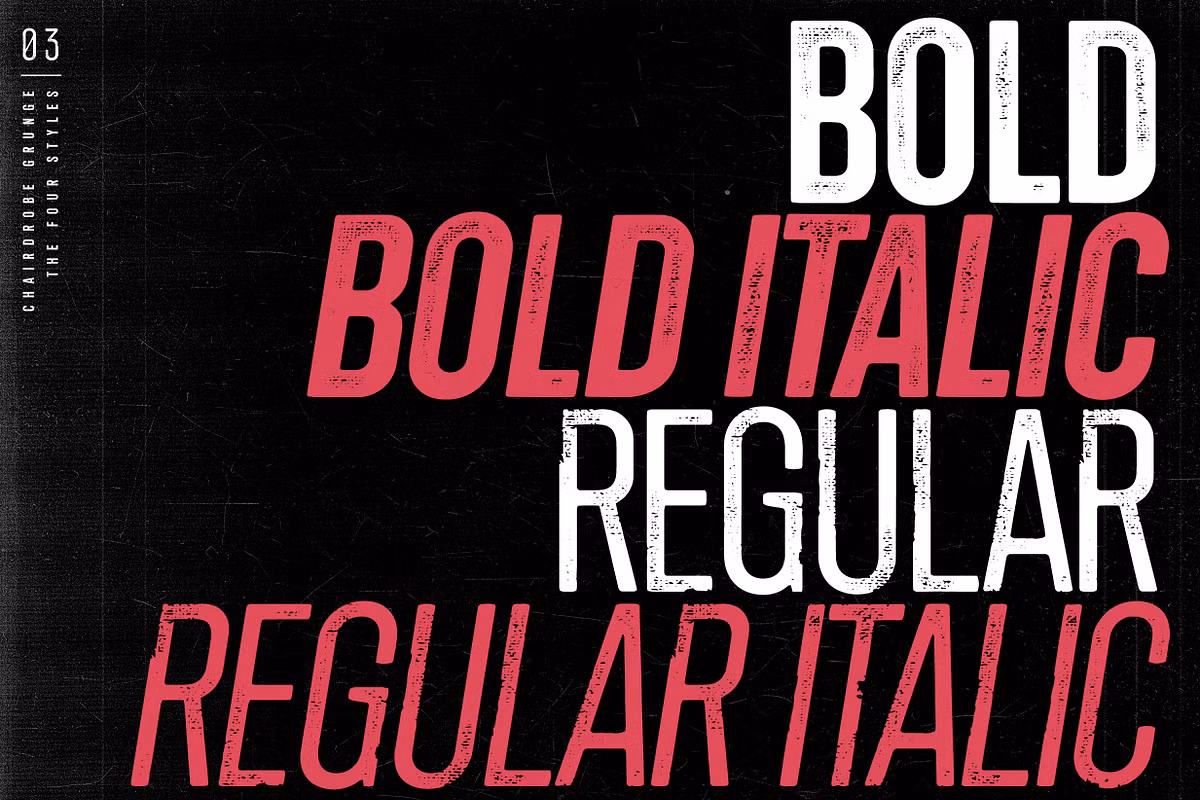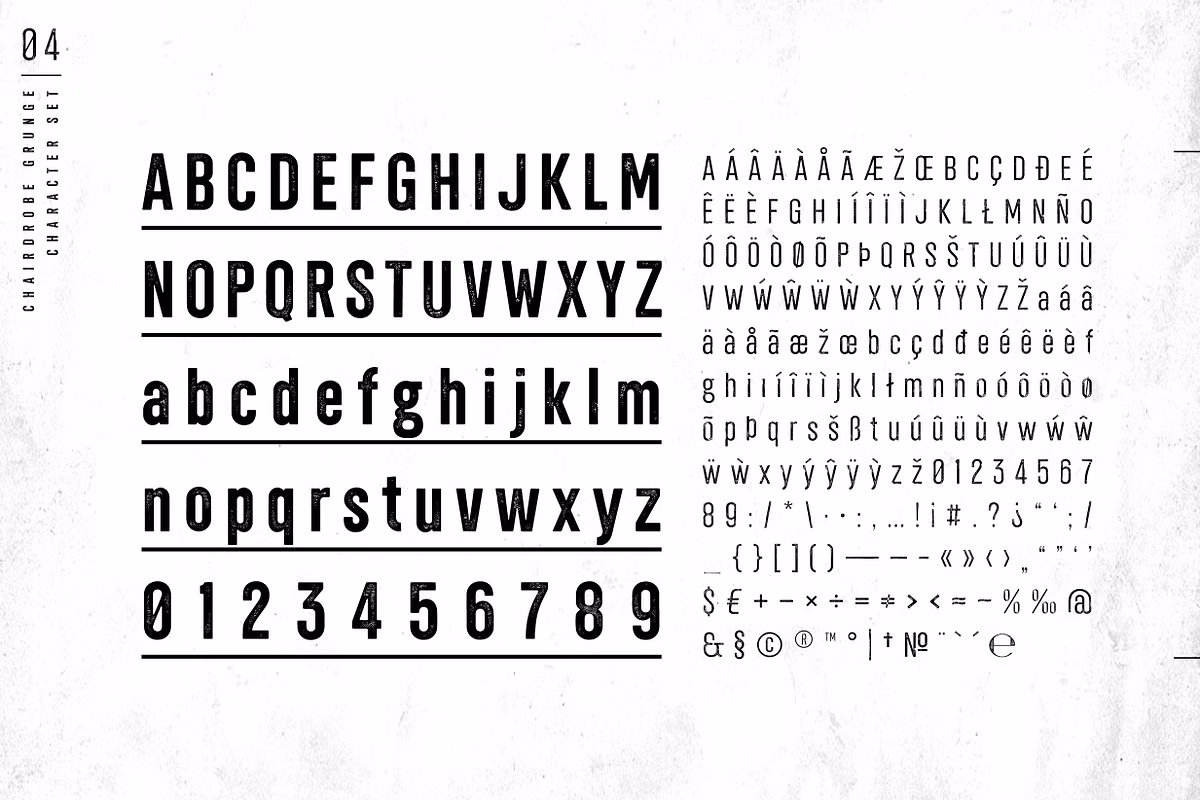
Chairdrobe Grunge: Minimalistic Urban Typeface with Four Styles
Introduction to Chairdrobe Grunge
Chairdrobe Grunge is a simple yet stylish font that’s perfect for modern city designs. It has a clean, rough look that gives it a bit of an edge, making it great for adding some attitude to your work. With four different styles to choose from – Bold, Bold Italic, Regular, and Regular Italic – you can use Chairdrobe Grunge for all sorts of projects, from bold statements to more subtle touches. Its raw, urban feel makes it a versatile choice for designers who want to give their work a contemporary twist. Whether you’re working on a poster, a website, or something else entirely, Chairdrobe Grunge is a great option to consider.
Design Style of Chairdrobe Grunge
The style of Chairdrobe Grunge is all about keeping things simple, but it still has a lot of personality. This font doesn’t have the extra bits on the letters, and it comes in both big and small letters, so you can use it in lots of different ways. The letters have rough edges and aren’t perfectly smooth, which gives them a cool, city feel. This makes it perfect for projects that want to stand out from the crowd and be a little different. It’s great for when you want to add some edge to your design and make it more interesting.
What’s really cool about Chairdrobe Grunge is that it’s easy to read, even though it has a lot of personality. The letters are close together, which means you can fit a lot of text in a small space, making it perfect for things like posters, logos, and websites. It’s great for getting people’s attention without being too much to handle. You can use it for big, eye-catching displays or for longer pieces of writing, and it still looks really good.
Character Set and Features
Chairdrobe Grunge has a big set of characters – it’s got both big and small letters. This means it’s good for lots of things, like titles and the main text. And, it’s also got slanted letters, which is really useful for making some words or phrases stand out. You can use it to add some extra style to your writing, and make it look more interesting. With Chairdrobe Grunge, you’ve got lots of options for making your text look great, whether you’re writing a headline or a whole paragraph. It’s a pretty versatile font, and that’s what makes it so useful.
Using Chairdrobe Grunge, a condensed font, is a great way to make your text stand out. Because the letters are closer together, you can fit more words in a smaller space, which makes it look really cool. Designers like to play around with the spacing between letters to create some amazing layouts. One thing that works really well is to add more space between the letters – this can make the font look really eye-catching and special, both in print and on screens. By doing this, you can turn the font into a real showstopper that grabs people’s attention.
Use Cases for Chairdrobe Grunge
The versatility of Chairdrobe Grunge makes it suitable for a variety of design projects. Here are some practical use cases:
- Use bold styles to make a big impact on posters, especially for headlines or event promotions – it really grabs your attention and makes a strong statement.
- Branding: Incorporate Chairdrobe Grunge into logos or branding materials to convey a modern, urban identity.
- Web Design: Use it for website headers or call-to-action buttons to grab attention and guide users effectively.
- The font is really easy to read, which makes it perfect for magazines or small publications that focus on city life or non-mainstream ways of living.
Chairdrobe Grunge has a really cool style that can fit into lots of different design situations, which makes it super popular among creative people who want to give their work a modern look. It’s easy to use in many contexts, so designers love it for making their projects look fresh and trendy.
Pairing Suggestions for Chairdrobe Grunge
When it comes to typography, pairing different fonts can create a harmonious and visually appealing design. Here are some suggestions for pairing Chairdrobe Grunge with other typefaces:
- When you combine Chairdrobe Grunge with a simple, elegant serif font like Merriweather, it creates a really interesting contrast. The flowing lines of the serif font help to balance out the rough, edgy feel of Chairdrobe, which makes it a great choice for laying out editorials.
- To give your design a modern feel, try pairing Chairdrobe with a geometric sans-serif font like Montserrat. The rounded shapes in Montserrat work really well with the compact style of Chairdrobe, creating a nice visual flow.
- Handwritten Fonts: For a more informal approach, consider pairing Chairdrobe Grunge with a handwritten font like “Pacifico.” This creates a dynamic interplay between structured and freeform elements, ideal for creative projects.
Experimenting with these pairings can lead to innovative designs that effectively communicate your message while maintaining visual interest.
So, what makes Chairdrobe Grunge so special? It’s a typeface that combines minimalism with an urban edge, making it perfect for designers who want to create something that really stands out. With four different styles to choose from, a huge character set, and the ability to be used in lots of different ways, Chairdrobe Grunge is great for both big, bold displays and longer pieces of text. Plus, it works really well with other typefaces, which makes it super versatile. Whether you’re designing a poster, building a website, or creating branding materials, Chairdrobe Grunge is a great tool to have in your toolkit. It’s all about adding a bit of personality to your designs, and this typeface definitely delivers.